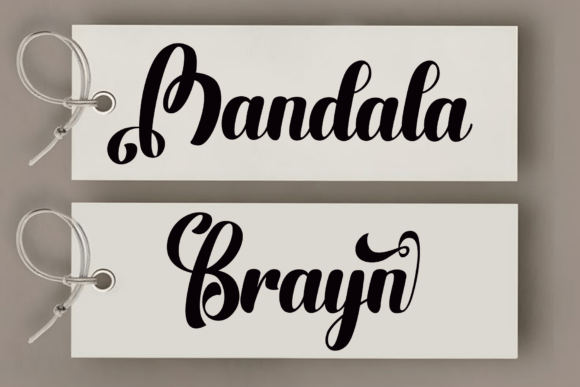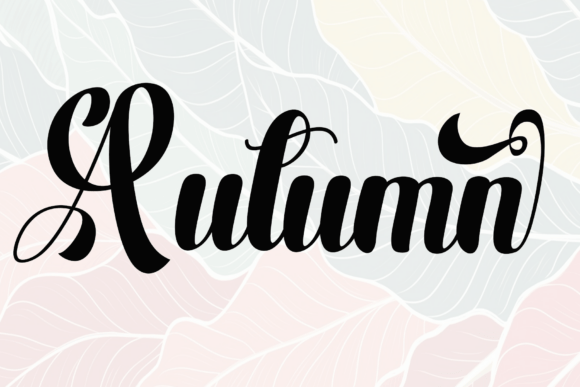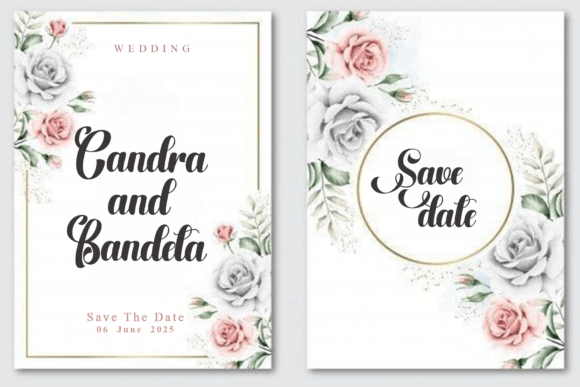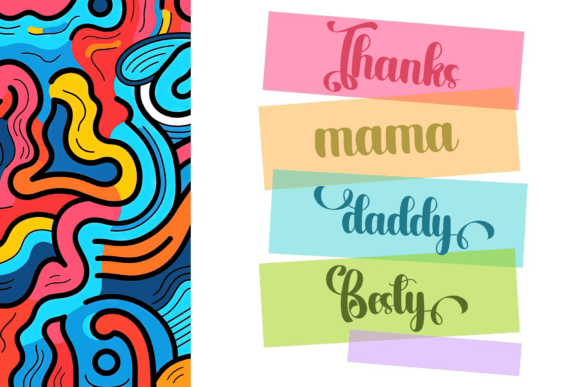
Introduction to Kitchen Minimalist Font
Have you ever stumbled upon a beautiful design that sparks your creativity and inspires you to take on a new project? For me, it was the discovery of the Kitchen Minimalist Font – a stunning script font that exudes elegance and charm. Its smooth curves and handwritten feel immediately caught my attention, and I knew I had to share it with fellow designers and creatives.
As a valuable design resource, the Kitchen Minimalist Font is perfect for a wide range of creative projects, from wedding invitations and personal branding to elegant packaging and romantic quotes. With its high-quality design and transparent background, it’s a great addition to any designer’s toolkit.
Key Features of Kitchen Minimalist Font
- High-quality design resource ideal for creative projects, such as kitchen-related designs, food labels, and restaurant menus.
- Unique, modern aesthetic with a minimalist approach, perfect for adding a touch of simplicity to your design.
- Perfect for designers, artists, and creatives working on kitchen-related designs, labels, and menus, or any project requiring a modern, minimalist aesthetic.
Honest Review: Kitchen Minimalist Font
As a designer, I’m always on the lookout for high-quality design resources that can elevate my creative projects. Recently, I had the opportunity to try out the Kitchen Minimalist Font, and I’m excited to share my thoughts on it.
First, let’s talk about what works well. ✨ The font is incredibly clean and simple, making it perfect for minimalist designs. It’s also highly customizable, allowing me to adjust the size, color, and style to fit my project’s needs. The transparent background option is a nice touch, too – it’s a great way to create a sense of depth and visual interest.
- High-quality design that’s perfect for minimalist designs
- Highly customizable, with options for size, color, and style
- Transparent background option for added depth and visual interest
That being said, there are a few limitations to consider. ⚠️ The font is not suitable for complex or ornate designs, as it can look a bit bland in those contexts. Additionally, the font is not as versatile as some other options on the market – it’s primarily designed for digital use, and may not be as effective in print.
Overall, I’m impressed with the Kitchen Minimalist Font. It’s a high-quality resource that’s perfect for designers who want to create clean, simple, and effective designs. With a bit of creativity, it’s a great addition to any design project.
The Kitchen Minimalist Font is ideal for designs that require a clean and modern aesthetic. Common use cases include food blogs, kitchen decor websites, and cooking instructional materials. To get the most out of this font, use it in conjunction with a transparent background to create a sleek and professional look.